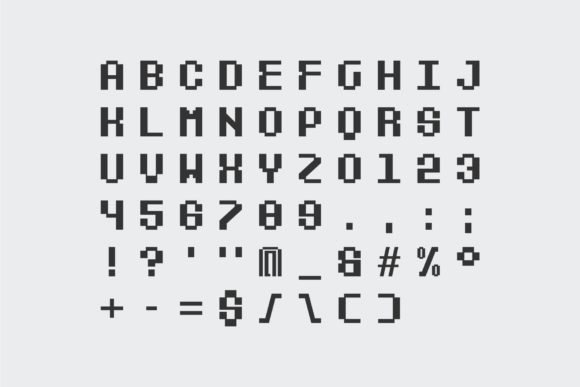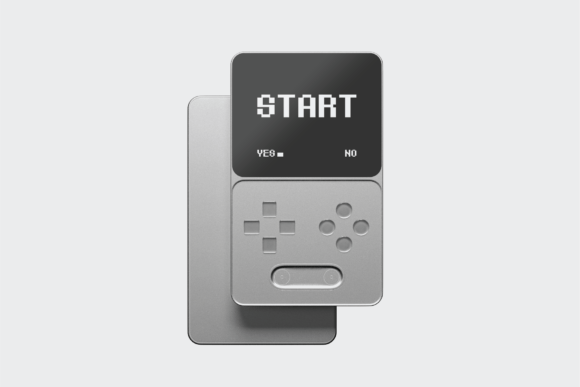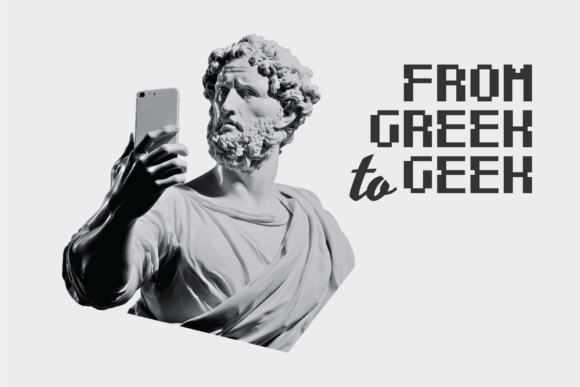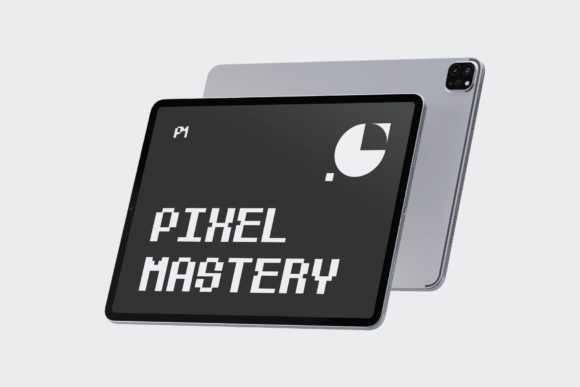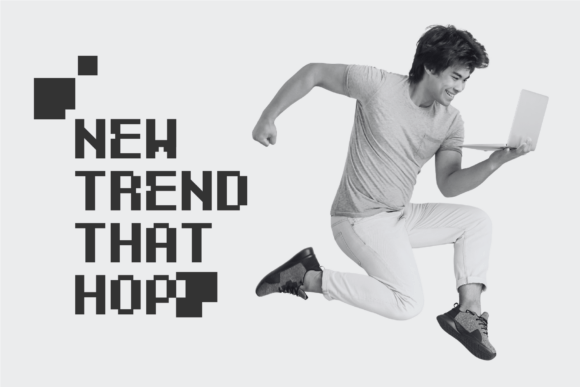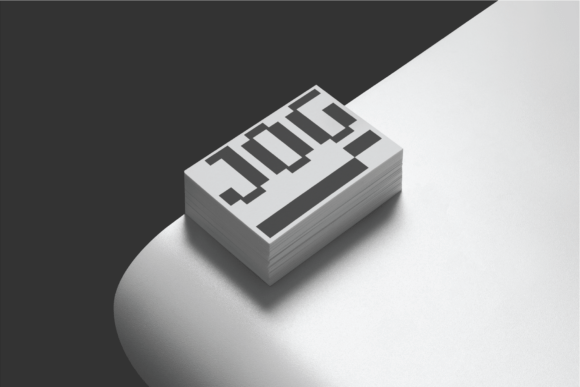
Introducing Code Mono: The Ultimate Pixel-Inspired Font for Techy Designs
In the world of digital design, typography plays a crucial role in conveying the tone and aesthetic of a project. For designers and crafters looking to add a touch of retro futurism to their work, Code Mono is the perfect font to consider. This pixel-inspired font is designed with blocky shapes, giving it a sharp and techy appearance that’s ideal for titles, posters, headers, and digital designs.
What is Code Mono?
Code Mono is a display monospaced font that pays tribute to retro computing with its chunky, pixelated design. The font features a uniform width, making it not only a stylish choice for display and logo work but also perfectly functional for coding interfaces, gaming themes, data visualizations, and modern tech branding. With Code Mono, designers can create awesome wordmarks and logomarks that exude a clean, technical, and industrial aesthetic.
Key Features of Code Mono
- Pixel-inspired design: Code Mono’s blocky shapes give it a sharp and techy appearance that’s reminiscent of old-school computer graphics.
- Monospaced font: The uniform width of Code Mono makes it perfect for coding interfaces, gaming themes, and data visualizations.
- Display font: Code Mono is designed for display purposes, making it ideal for titles, posters, headers, and digital designs.
- Retro computing vibe: Code Mono’s pixelated design pays tribute to retro computing, giving it a unique and nostalgic aesthetic.
- Versatile: Code Mono can be used for branding, logo work, and various design projects that require a techy and modern look.
Use Cases for Code Mono
Code Mono is a versatile font that can be used in various design projects, including:
- Branding and logos: Create awesome wordmarks and logomarks with Code Mono’s unique pixel-inspired design.
- Posters and flyers: Add a touch of retro futurism to your posters and flyers with Code Mono’s bold and techy appearance.
- Digital designs: Use Code Mono in digital designs, such as website headers, social media graphics, and mobile app interfaces.
- Coding interfaces: Code Mono’s monospaced design makes it perfect for coding interfaces, such as IDEs, text editors, and code snippets.
- Gaming themes: Add a touch of nostalgia to your gaming themes with Code Mono’s retro-inspired design.
- Data visualizations: Use Code Mono to create clean and readable data visualizations, such as charts, graphs, and infographics.
Why Choose Code Mono?
Code Mono is a unique font that offers a distinct aesthetic that’s hard to find in modern fonts. Here are some reasons why designers and crafters should consider using Code Mono:
- Authentic 8-bit look: Code Mono provides an authentic 8-bit, screen-gridded look that’s perfect for retro-inspired designs.
- Clean and technical aesthetic: Code Mono’s pixel-inspired design gives it a clean and technical aesthetic that’s ideal for techy designs.
- Industrial feel: Code Mono’s chunky design gives it an industrial feel that’s perfect for modern tech branding.
- Easy to read: Despite its pixelated design, Code Mono is easy to read, making it perfect for display purposes.
Code Mono is a unique and versatile font that’s perfect for designers and crafters looking to add a touch of retro futurism to their work. With its pixel-inspired design, monospaced width, and clean aesthetic, Code Mono is ideal for various design projects, from branding and logos to digital designs and coding interfaces. Get the authentic 8-bit, screen-gridded look with Code Mono and take your designs to the next level.